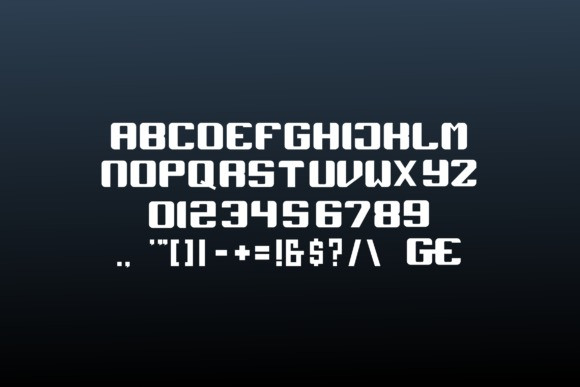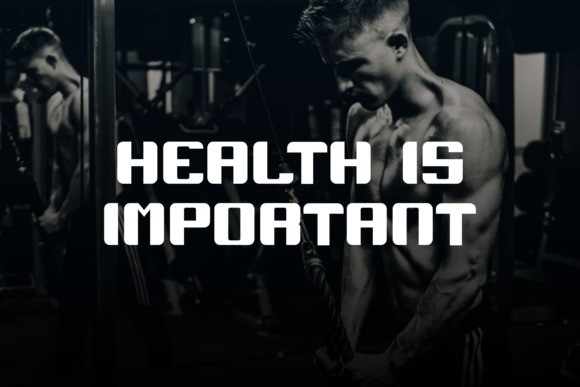
Unknow Display Font
Unknow Modern Display Vintage Font, special glyphs, ornament and multilingual support. It’s a very versatile font that works great in large and small sizes. Perfect for editorial projects, Logo design, Clothing Branding, product packaging, magazine headers, or simply as a stylish text overlay to any background image.